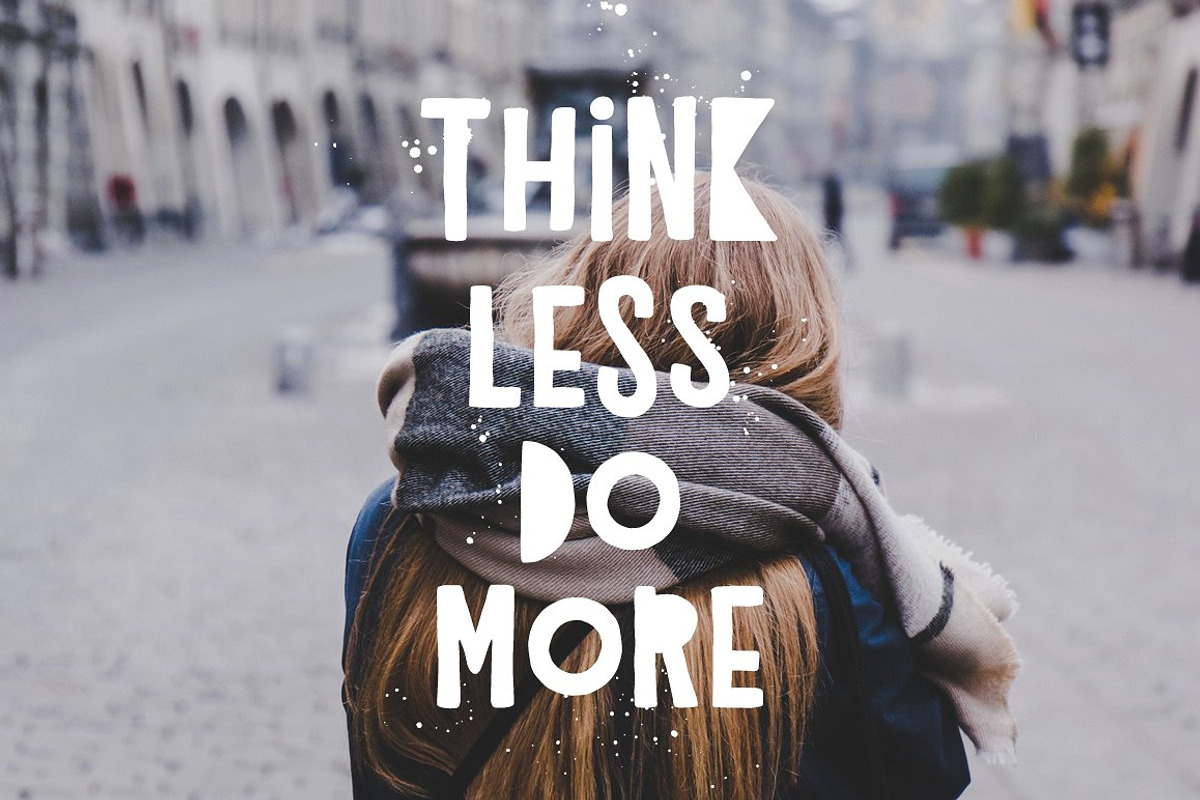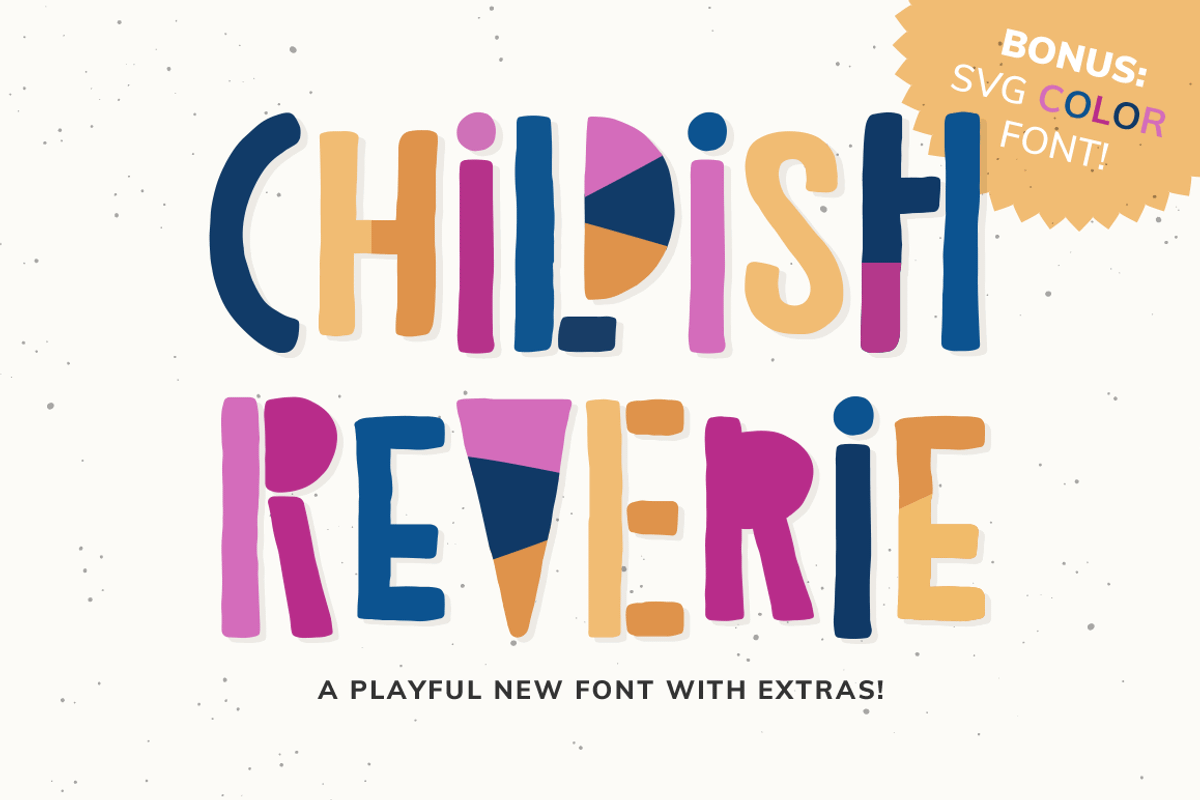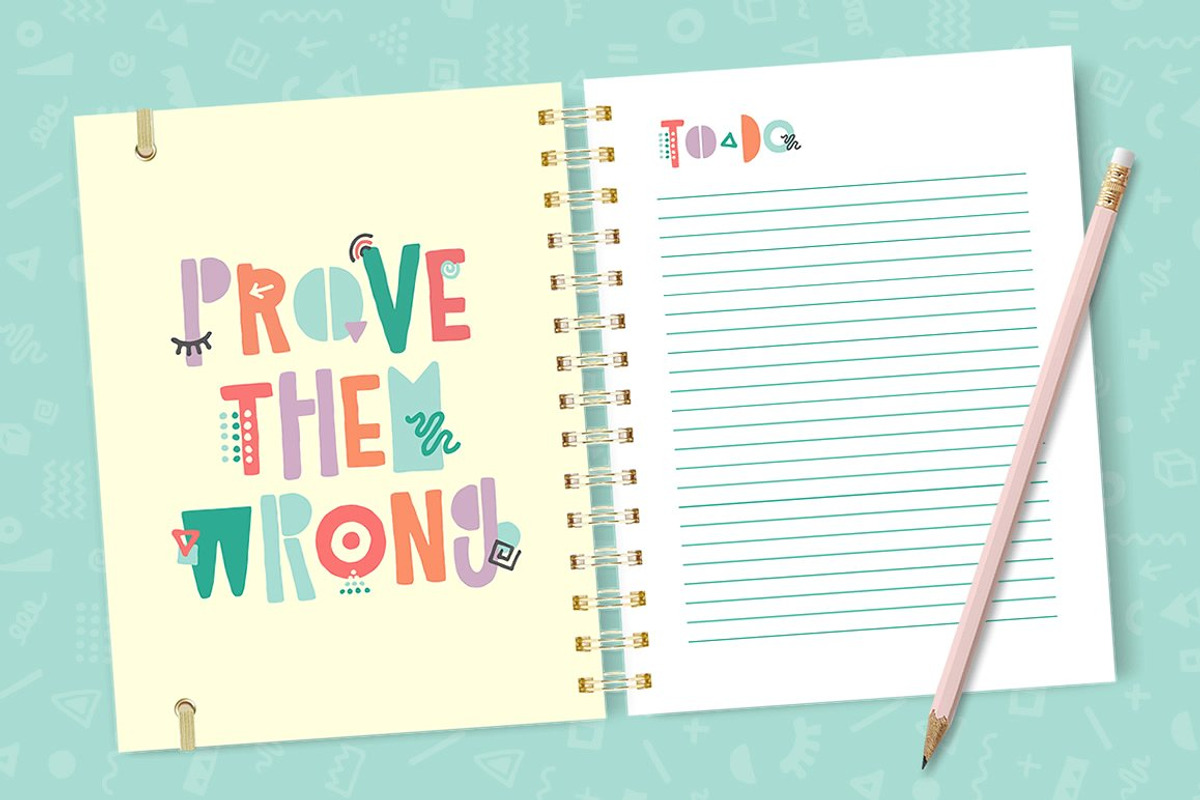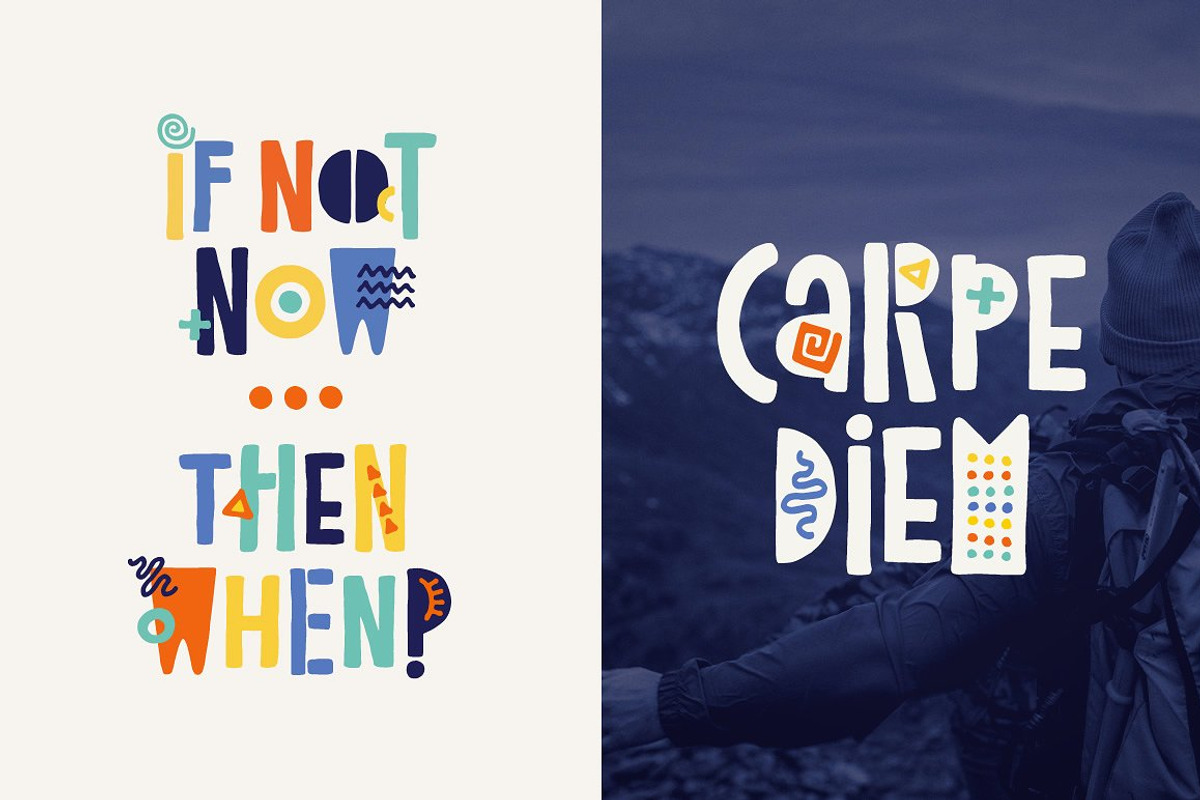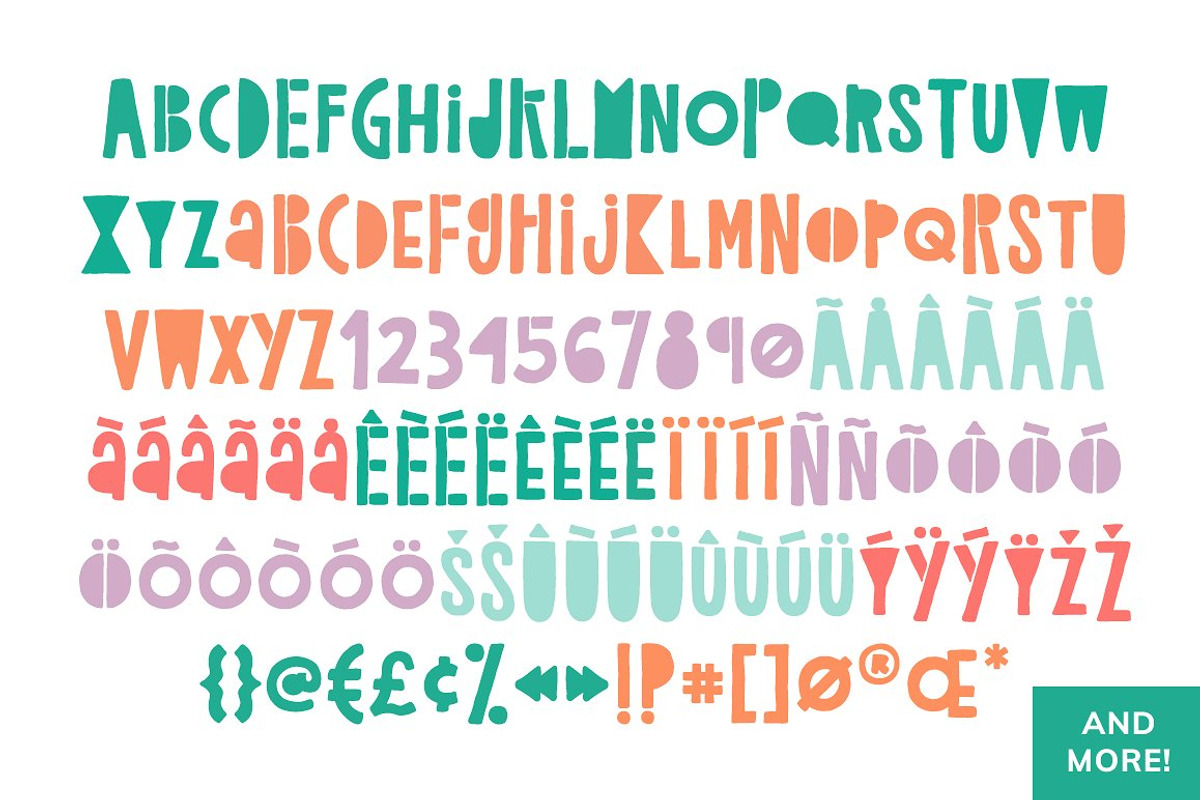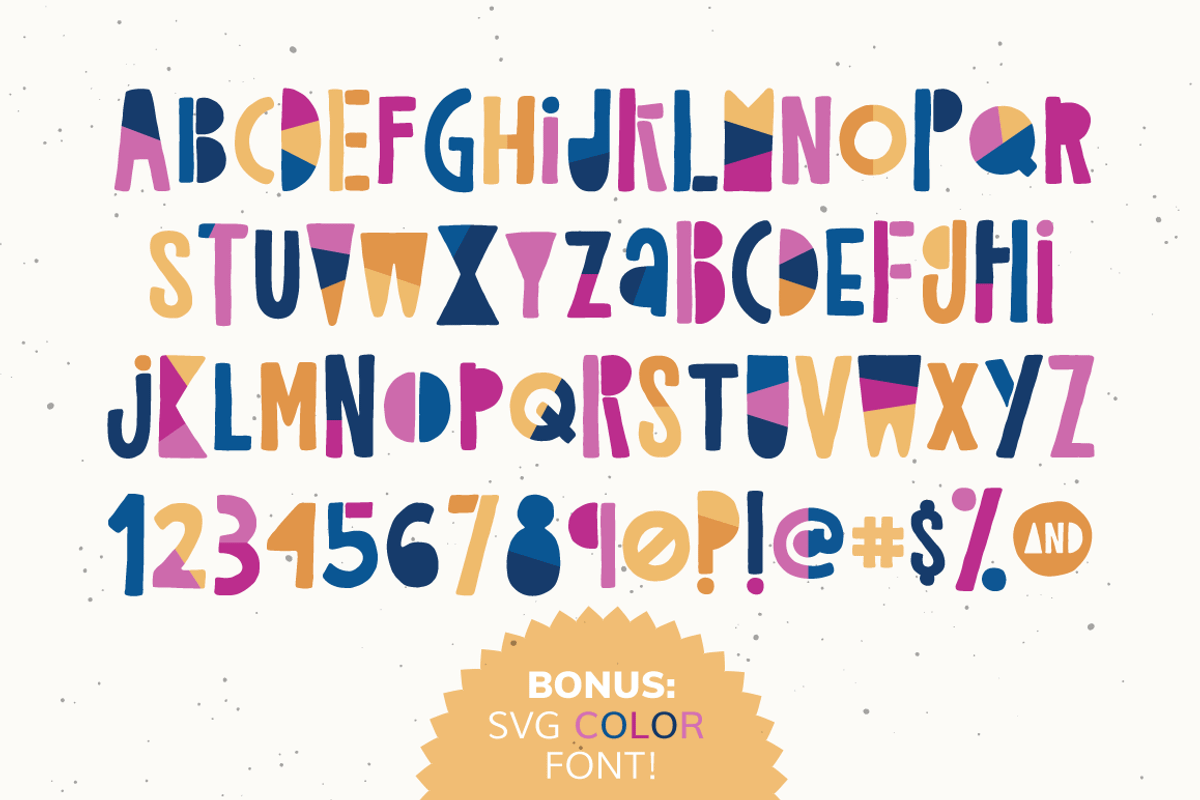
Childish Reverie Font
NEW!!! Childish Reverie now comes with a color-blocked SVG font. SVG fonts can be used in Photoshop CC 2017+ and Illustrator CC 2018+. I've also included png files for each letter (A-Z, a-z, 0-9, and a few extra glyphs) for use in other programs.
Childish Reverie is a playful font with endless possibilities. Mix and match the upper and lowercase letters and throw in some memphis-style doodles to get exactly the look you want. Have fun!